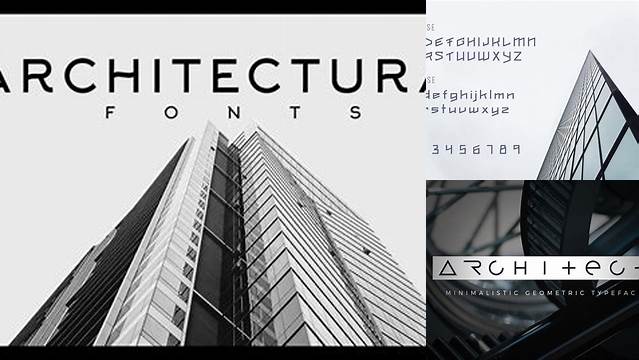
Architecture Fonts: Free Downloads For Your Designs
Hey guys! Are you looking for the perfect architecture fonts to elevate your design projects? Well, you've come to the right place! In this article, we're diving deep into the world of architecture fonts, exploring everything from classic styles to modern aesthetics, and, best of all, where to find them for free. Whether you're a seasoned architect, a student, or just a design enthusiast, choosing the right font can make all the difference in conveying your vision with clarity and style. So, let's get started and discover the amazing fonts that can bring your architectural designs to life!
1. Best Architecture Fonts for CAD Drawings
When it comes to CAD drawings, readability is key. The best architecture fonts for these technical documents are those that offer clear, concise letterforms without unnecessary embellishments. Think along the lines of sans-serif fonts, which generally provide better legibility on screen and in print at smaller sizes. Fonts like Arial, Helvetica, and Open Sans are popular choices because of their clean and straightforward designs. These fonts ensure that your dimensions, notes, and other crucial information are easily readable, preventing misinterpretations and errors. Remember, in CAD drawings, clarity trumps creativity every time! Choose fonts that maintain uniformity and consistency throughout your project to ensure a professional and accurate representation of your architectural plans. Also, consider the line weight and spacing of the font; these elements play a significant role in how well the text integrates with the overall drawing. Using the right font can greatly improve the clarity and professionalism of your technical drawings, making them easier to understand for everyone involved in the project.
2. Free Modern Architecture Fonts Download
If you're aiming for a sleek, contemporary look, a free modern architecture font download is the way to go. These fonts often feature clean lines, geometric shapes, and a minimalist aesthetic that perfectly complements modern architectural designs. Think about fonts like Montserrat, Lato, and Roboto – they’re all available for free and offer a range of weights and styles to suit various applications. These fonts can add a touch of sophistication and elegance to your presentations, websites, and marketing materials. When selecting a modern font, consider how it interacts with the visual elements of your design. A font that is too bold or decorative can distract from the overall composition, while a font that is too thin or light may be difficult to read. Experiment with different options to find the perfect balance. Also, keep in mind the importance of licensing. While many fonts are available for free download, it’s crucial to check the licensing terms to ensure that you can use them for your intended purpose, whether it’s for commercial or personal projects. A well-chosen modern font can elevate your architectural designs, making them more visually appealing and impactful.
3. Classic Architecture Fonts for Timeless Designs
For projects that demand a sense of history and tradition, classic architecture fonts are an excellent choice. These fonts often draw inspiration from historical typefaces, offering a timeless and elegant aesthetic that resonates with traditional architectural styles. Fonts like Times New Roman, Garamond, and Baskerville are classics for a reason – their refined letterforms and balanced proportions exude sophistication and professionalism. These fonts are particularly well-suited for projects such as historical renovations, preservation efforts, and designs that aim to evoke a sense of nostalgia. When using classic fonts, pay attention to details such as kerning and leading to ensure optimal readability. These fonts often have intricate details that require careful attention to ensure they are displayed correctly. Also, consider the context in which the font will be used. A classic font may not be the best choice for a modern website or a contemporary marketing campaign. However, when used appropriately, these fonts can add a touch of timeless elegance to your architectural designs, creating a lasting impression. Embrace the history and tradition that these fonts embody, and let them enhance the beauty and authenticity of your projects.
4. How to Choose the Right Font for Architectural Drawings
Choosing the right font for architectural drawings is crucial for ensuring clarity, readability, and professionalism. The font you select should not only be aesthetically pleasing but also functional and easy to understand. Start by considering the purpose of the drawing. Is it a technical document intended for construction purposes, or is it a presentation meant to impress clients? For technical drawings, prioritize fonts that are clean, simple, and easy to read at small sizes. Sans-serif fonts like Arial and Helvetica are often the best choice for these applications. For presentations and marketing materials, you have more flexibility to experiment with different styles, but always prioritize readability. Consider the overall design aesthetic and choose a font that complements the architectural style. Also, pay attention to details such as kerning, leading, and line weight, as these elements can significantly impact the legibility of the text. Don't be afraid to test different options and get feedback from others. Ultimately, the right font is one that enhances the clarity and visual appeal of your architectural drawings, helping you communicate your ideas effectively.
5. Free Sans Serif Fonts for Architectural Use
Free sans serif fonts are a staple in architectural design due to their clean, modern appearance and excellent readability. These fonts lack the small decorative strokes (serifs) found in traditional typefaces, making them ideal for technical drawings, presentations, and websites. Popular options include Open Sans, Roboto, and Lato, all of which are available for free and offer a variety of weights and styles to suit different applications. Sans serif fonts are particularly well-suited for projects that require a minimalist aesthetic or a contemporary feel. Their simplicity and clarity make them easy to read on screen and in print, even at small sizes. When selecting a sans serif font, consider the overall design context and choose a font that complements the architectural style. A font that is too bold or decorative can distract from the overall composition, while a font that is too thin or light may be difficult to read. Experiment with different options to find the perfect balance. Also, keep in mind the importance of licensing. While many fonts are available for free download, it’s crucial to check the licensing terms to ensure that you can use them for your intended purpose.
6. Best Serif Fonts for Architecture Presentations
While sans serif fonts are often preferred for technical drawings, serif fonts can add a touch of elegance and sophistication to architecture presentations. These fonts feature small decorative strokes (serifs) at the end of each letter, giving them a more traditional and refined appearance. Popular options include Times New Roman, Garamond, and Baskerville, all of which are classics that have stood the test of time. Serif fonts are particularly well-suited for projects that aim to evoke a sense of history, tradition, or luxury. They can add a touch of class to your presentations, making them more visually appealing and memorable. When using serif fonts, pay attention to details such as kerning and leading to ensure optimal readability. These fonts often have intricate details that require careful attention to ensure they are displayed correctly. Also, consider the overall design context and choose a font that complements the architectural style. A serif font may not be the best choice for a modern website or a contemporary marketing campaign. However, when used appropriately, these fonts can enhance the visual appeal of your architecture presentations, helping you make a lasting impression.
7. Architecture Font Pairing Tips
Font pairing is an essential skill for any designer, and it's particularly important in architecture where the right combination can enhance the overall aesthetic and readability of your designs. The key is to create a balance between different fonts, ensuring they complement each other without clashing. A common approach is to pair a sans serif font with a serif font, using the sans serif for headings and the serif for body text, or vice versa. This creates a visual hierarchy that guides the reader through the information. Another tip is to choose fonts from the same font family, as they are designed to work well together. For example, you might pair Open Sans Regular with Open Sans Bold. When pairing fonts, consider their x-height, weight, and overall style. Fonts with similar x-heights tend to work well together, while contrasting weights can create visual interest. Don't be afraid to experiment and try different combinations, but always prioritize readability and visual harmony. A well-chosen font pairing can elevate your architecture designs, making them more visually appealing and effective.
8. Where to Find Free Architecture Fonts Online
Finding high-quality architecture fonts for free can be a challenge, but there are several online resources that offer a wide selection of options. Websites like Google Fonts, Font Squirrel, and DaFont are popular choices, offering a vast library of free fonts that you can download and use in your projects. Google Fonts is particularly useful because it allows you to easily embed fonts directly into your website without having to host them yourself. Font Squirrel is another great resource, offering a curated selection of high-quality free fonts that are suitable for commercial use. DaFont has a more extensive collection, but it's important to check the licensing terms before using any of the fonts, as some may only be free for personal use. When searching for free architecture fonts, be sure to use specific keywords such as "modern sans serif," "classic serif," or "technical drawing fonts" to narrow down your search. Also, take the time to preview the fonts and test them out in your designs before committing to a particular option. With a little bit of research, you can find amazing fonts that will enhance your architectural projects without breaking the bank.
19. How to Embed Architecture Fonts in PDFs
Embedding architecture fonts in PDFs is essential for ensuring that your documents display correctly on all devices and operating systems, regardless of whether the recipient has the same fonts installed on their computer. When you embed fonts in a PDF, the font files are included within the PDF document itself, so the recipient doesn't need to have the fonts installed on their system. To embed fonts in a PDF, you'll need to use a PDF creation tool such as Adobe Acrobat or a free alternative like PDFCreator. In Adobe Acrobat, you can typically embed fonts by going to the